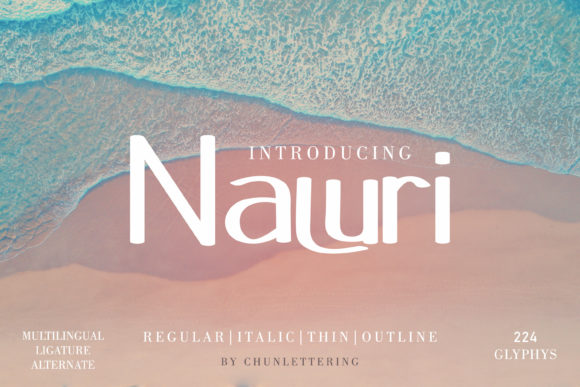
Introducing Naluri, the sans serif font that will elevate your designs to new heights. This stunning font family is perfect for those who seek beauty, smoothness, and a touch of the natural world in their typography.
With its clean lines and flawless execution, Naluri embodies the essence of nature itself. Each stroke flows effortlessly, creating a captivating visual experience that will leave a lasting impression on your audience.
Whether you're designing captivating logos, creating eye-catching posters, or crafting elegant invitations, Naluri is the ultimate choice. Its versatility extends to websites, display text, and everything in between.
Imagine your brand adorned with the sophistication of Naluri, attracting attention and leaving an unforgettable mark. Its timeless aesthetic will enhance your designs, making them stand out from the crowd.
Naluri is more than just a font; it's an expression of creativity and passion. Each character exudes a sense of tranquility and elegance, inviting your audience to immerse themselves in your designs.